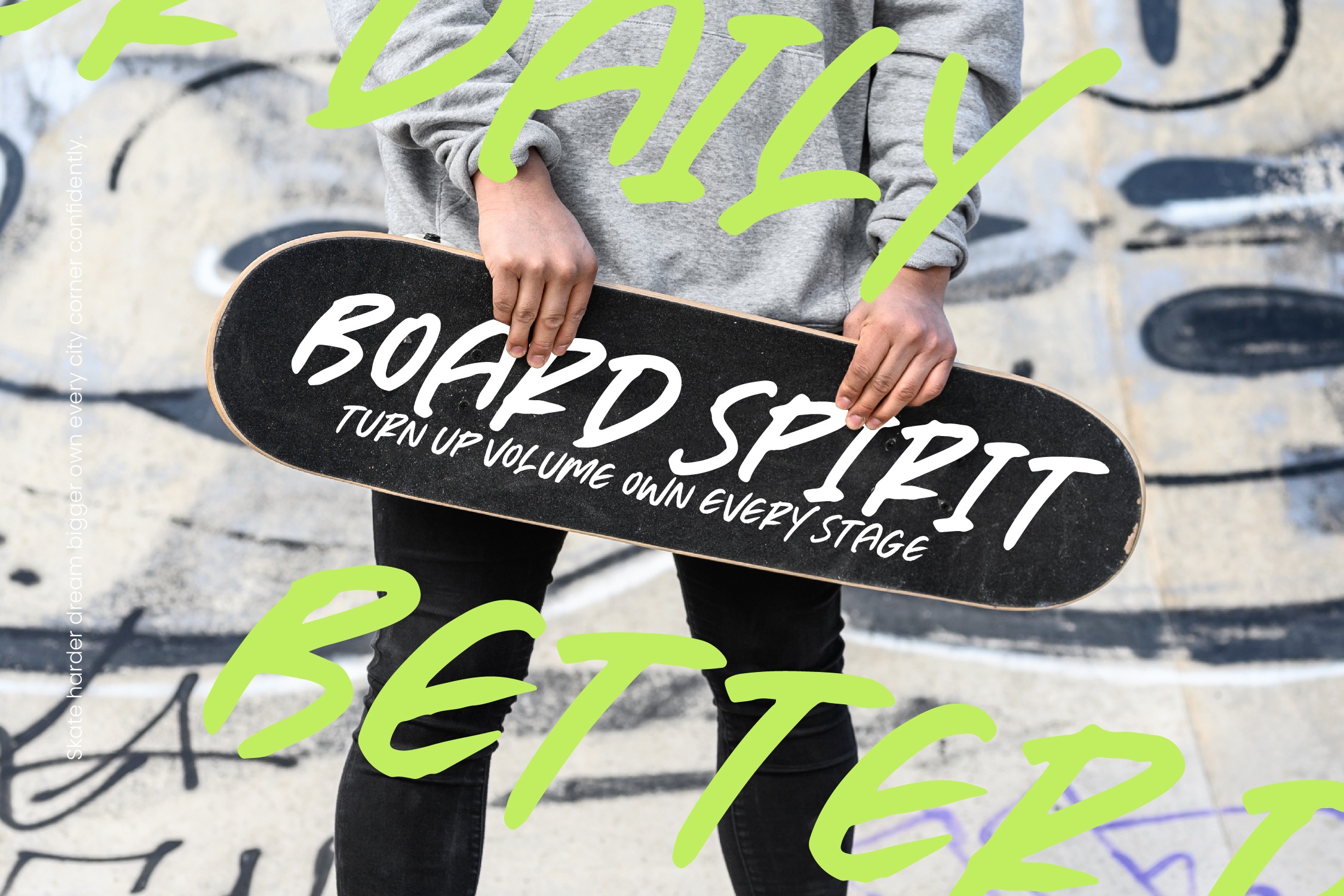
Better Daily – Modern Handwritting Font
Better Daily – Modern Handwritting Font is a distinctive and expressive font crafted to bring personality, structure, and creative energy into your projects. Elevate your brand’s visual identity with the raw energy and effortless style of Better Daily – Modern All Caps Handwritting. This high-impact typeface captures the essence of contemporary brush lettering, offering a dynamic aesthetic that feels both personal and professional. Designed to command attention, Better Daily – Modern All Caps Handwritting is the perfect choice for creators looking to inject authentic character and a modern edge into their graphic design projects.
Versatility is at the heart of this font’s design, featuring a robust set of custom ligatures and stylistic alternates that ensure every composition looks unique. With its extensive multilingual support, Better Daily – Modern All Caps Handwritting adapts seamlessly across global markets, making it incredibly versatile for international projects. This comprehensive glyph set allows designers to maintain a consistent brand voice while reaching diverse audiences across the world.
Transform your creative output by applying Better Daily – Modern All Caps Handwritting to a wide variety of high-end applications. This font is perfect for urban streetwear branding, premium product packaging, bold editorial layouts, and impactful social media marketing. Whether you are crafting luxury lifestyle advertisements or energetic event posters, this typeface provides the visual punch needed to leave a lasting impression on your target audience.
Experience the perfect blend of organic flow and bold confidence with this essential professional design asset. Investing in Better Daily – Modern All Caps Handwritting means choosing a timeless typographic solution that balances artistic flair with commercial readability. Empower your brand storytelling today and ensure your message is delivered with unparalleled charisma and visual strength.